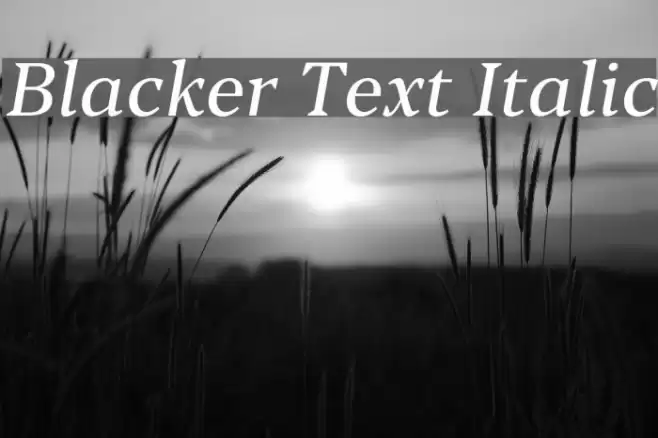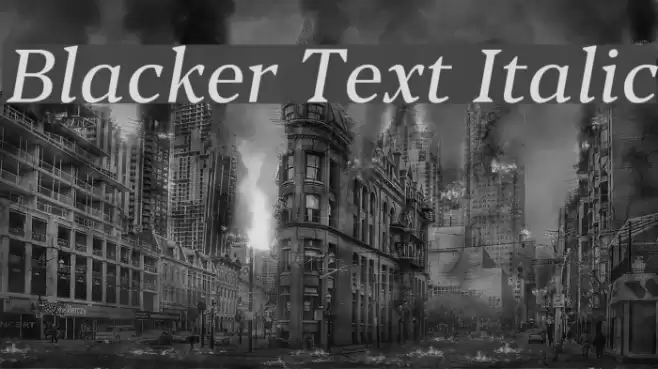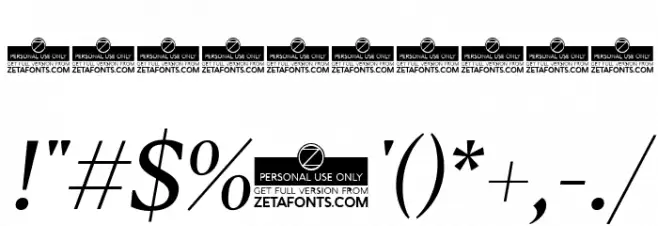
Blacker Text Italic Font
Blacker Text Italic Description
This font features a sophisticated and elegant italic style, characterized by its smooth, flowing lines and refined serifs. The letters exhibit a slight slant to the right, enhancing the dynamic and graceful appearance. The uppercase letters are tall and commanding, while the lowercase letters maintain a balanced and harmonious look. The numerals are consistent with the overall style, providing clarity and readability. Special characters are well-integrated, maintaining the font's cohesive aesthetic. This font is ideal for projects that require a touch of elegance and sophistication.
An elegant italic serif font with smooth, flowing lines and refined serifs from Uncategorized fonts.
- Proposed Projects: Ideal for luxury branding, wedding invitations, editorial design, and elegant packaging.
- Overall Style: Classic
- Use Case: Headlines, Logos, Editorial design